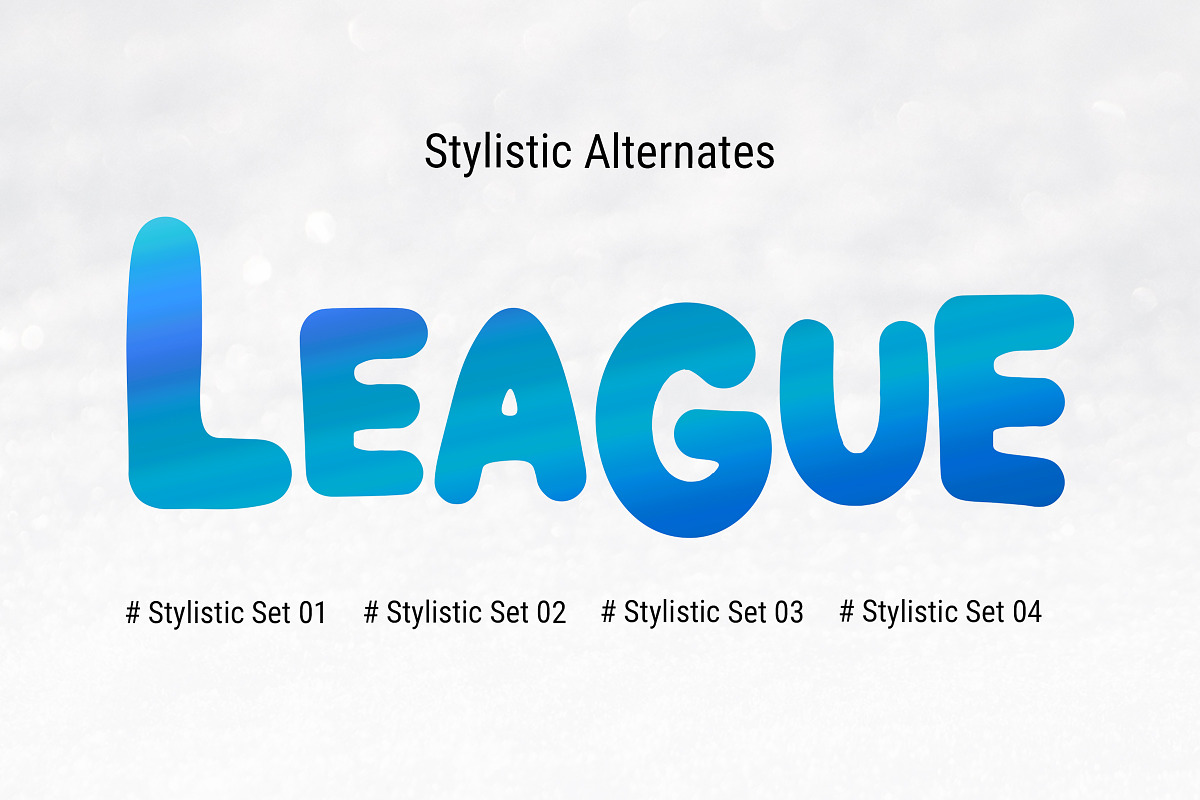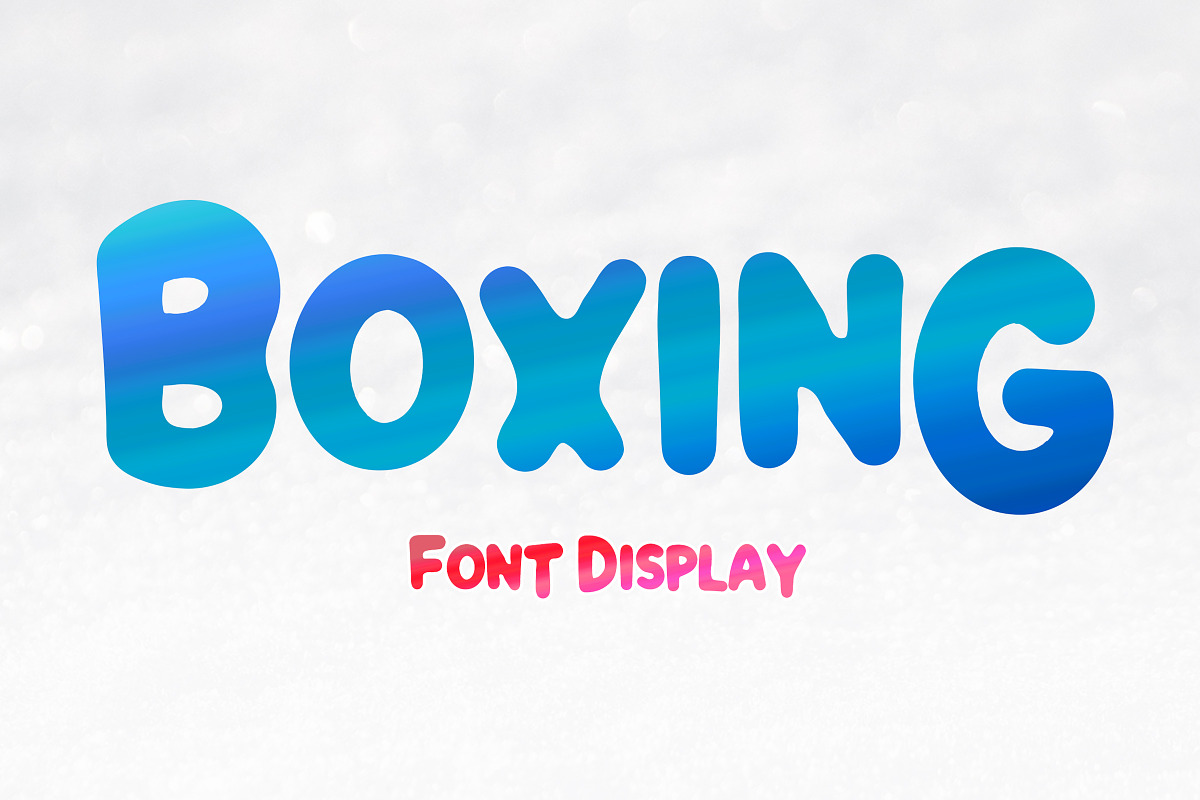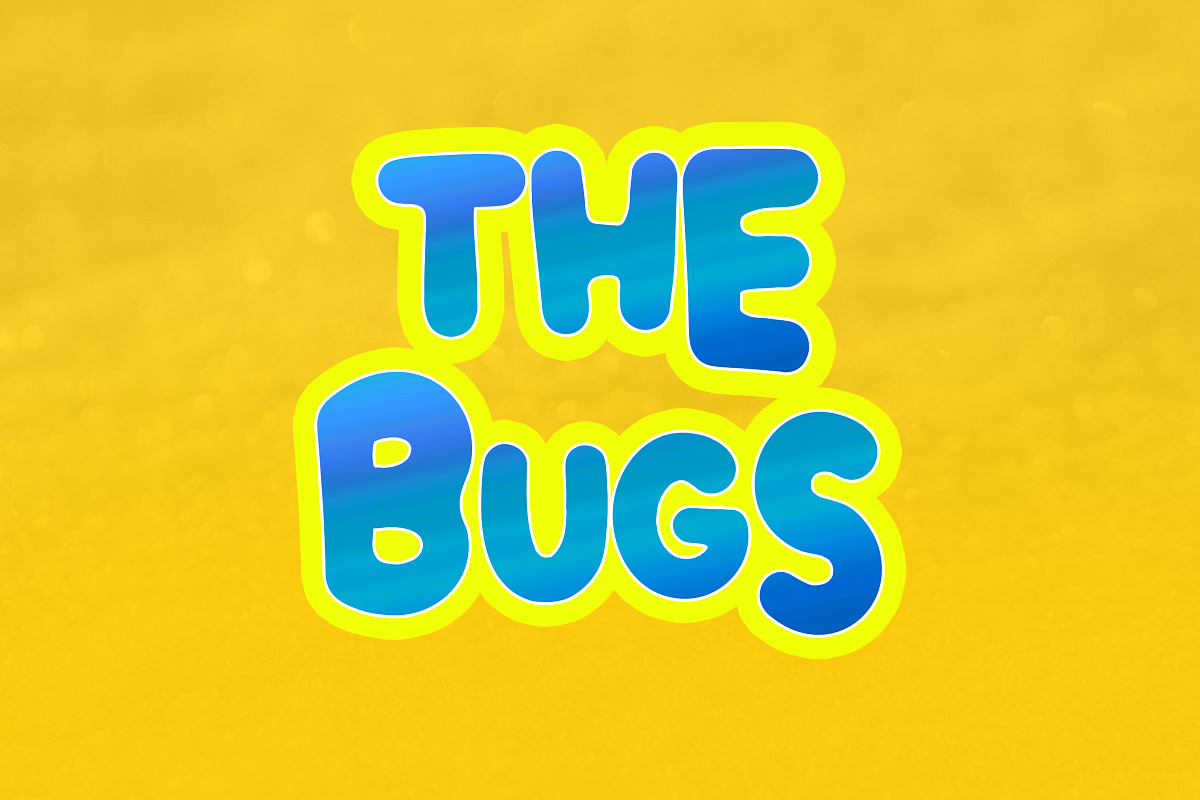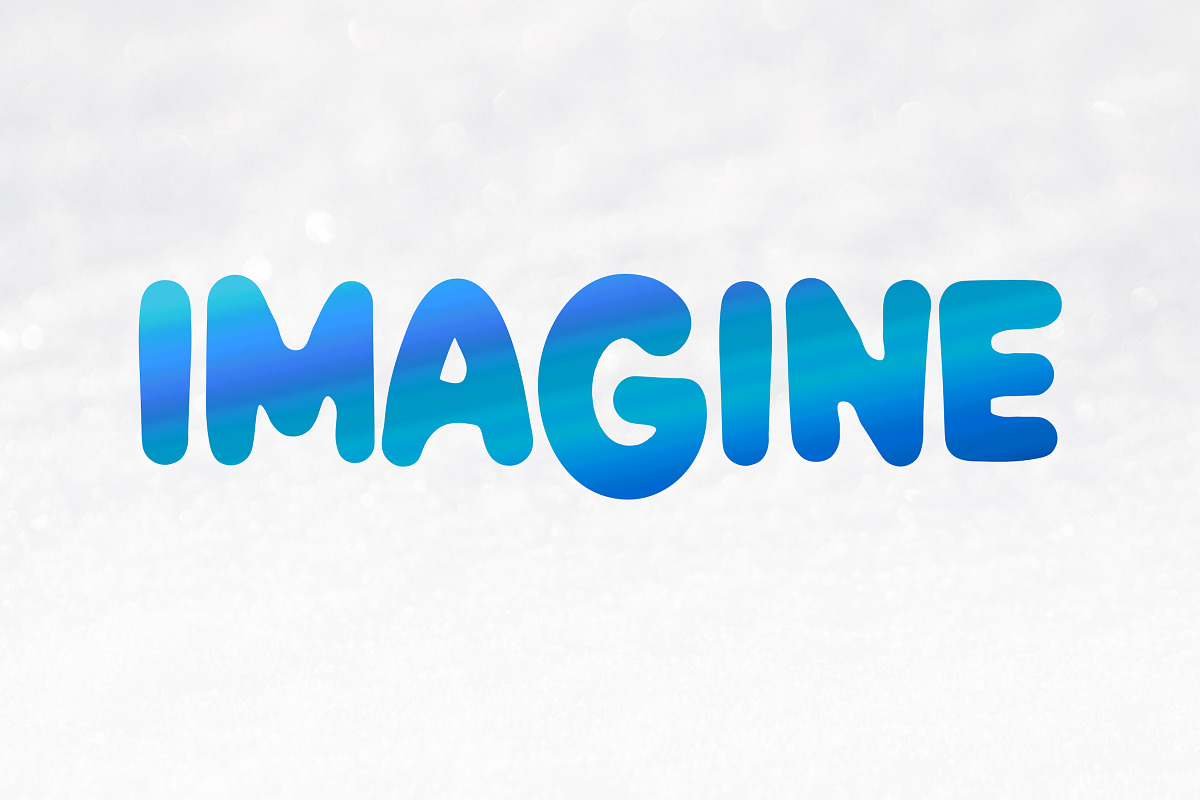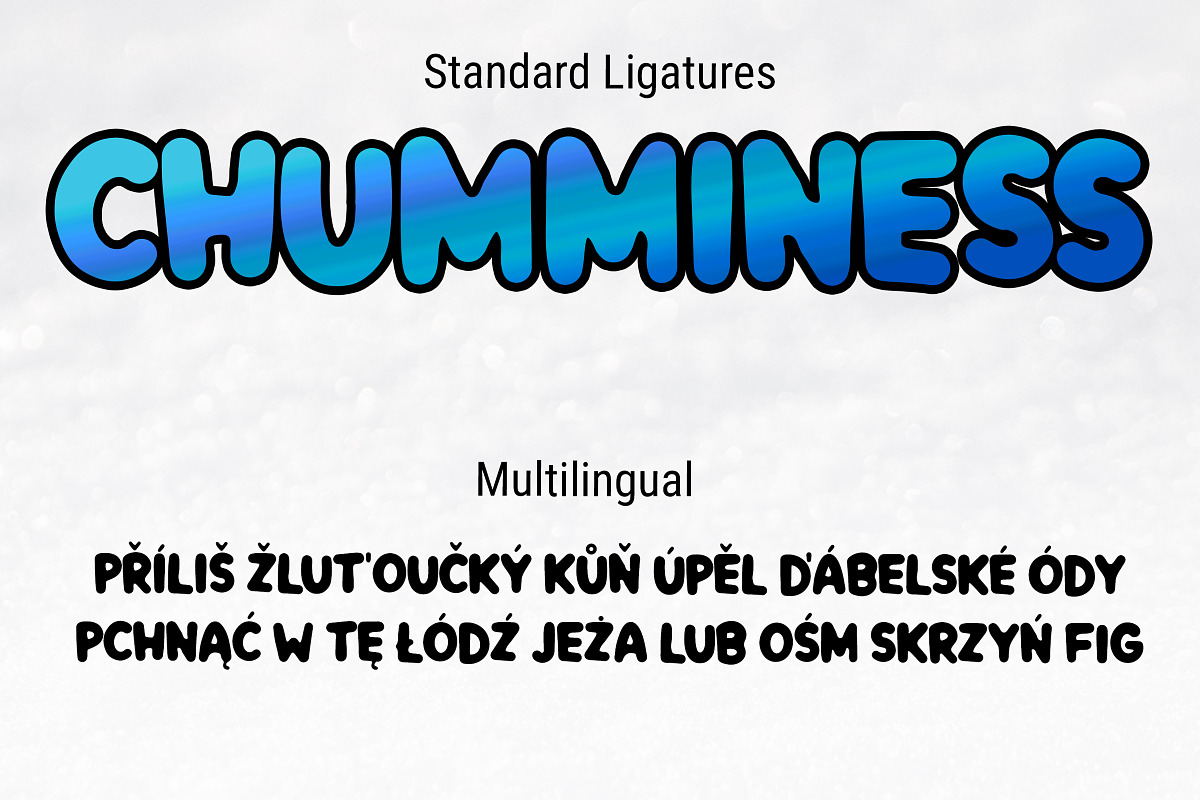
Boxing amazing font
Boxing is a fun and charming display font. It embodies playfulness and originality and is the perfect choice for kids’ activities or school projects, clothing, food posters, and birthday cards. (please type the preview to see if I have what you need)